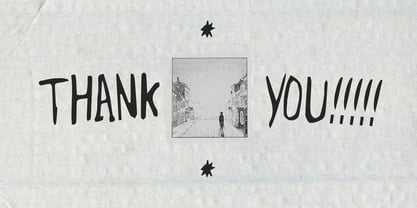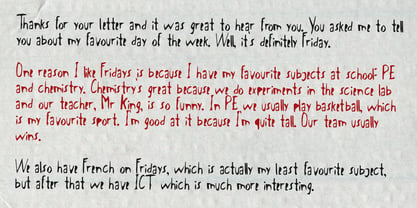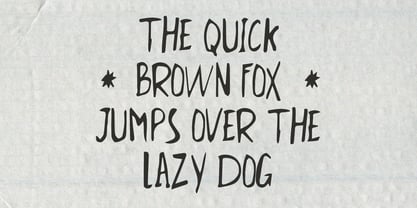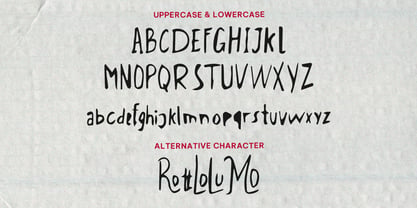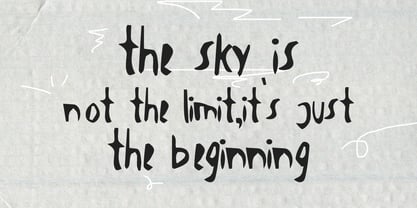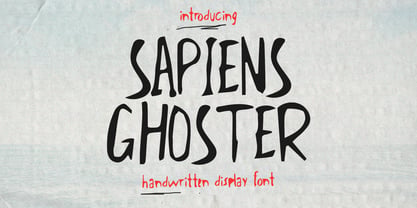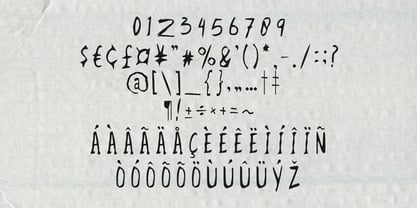
MC Sapiens Ghoster
by Maulana Creative
The MC Sapiens Ghoster Font Family was designed by Gilang Maulana and published by Maulana Creative. MC Sapiens Ghoster contains 1 styles. More about this family
Sapiens Ghoster is a sans display handwritten font. With bold stroke, fun character with a bit of ligatures. To give you an extra creative work. Sapiens Ghoster font support multilingual more than 100+ language. This font is good for logo design, Social media, Movie Titles, Books Titles, a short text even a long text letter and good for your secondary text font with sans or serif. Make a stunning work with Sapiens Ghoster font.
Designers: Gilang Maulana
Foundry: Maulana Creative